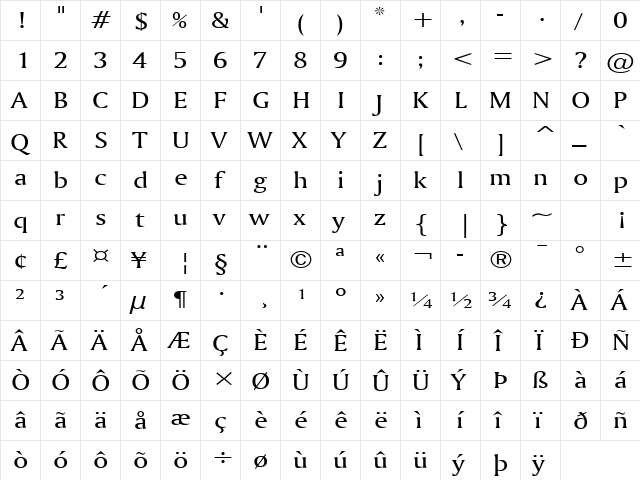
Ameretto Wide Normal
Design Context for Ameretto Wide Typeface
Ameretto Wide takes a measured approach to typography — its balanced proportions and neutral character make it a reliable workhorse for both digital and print work.